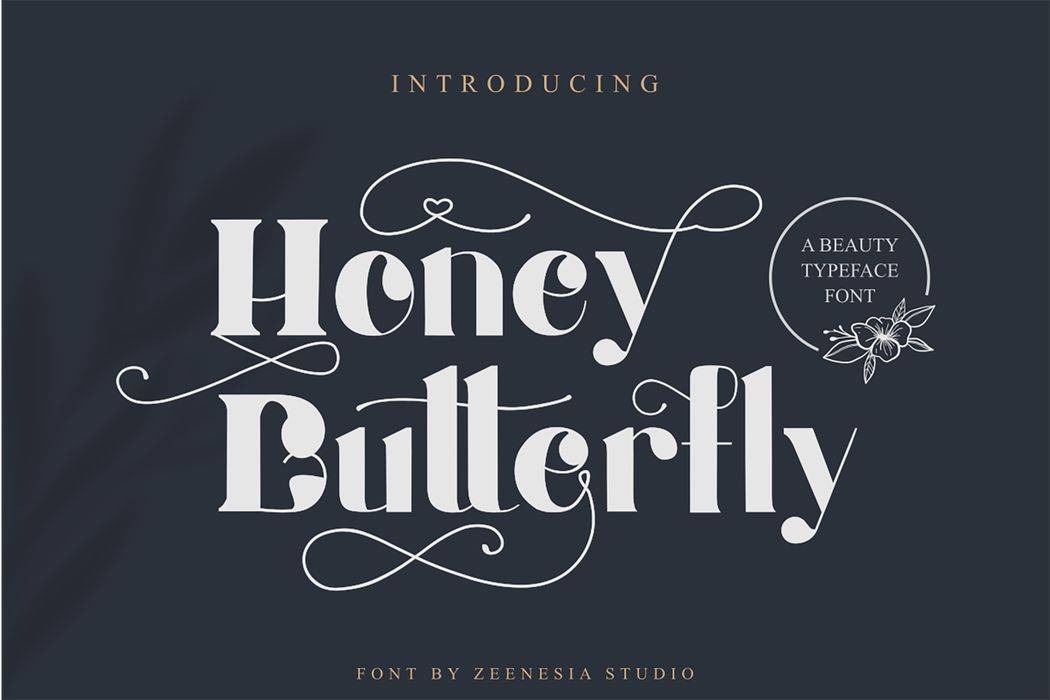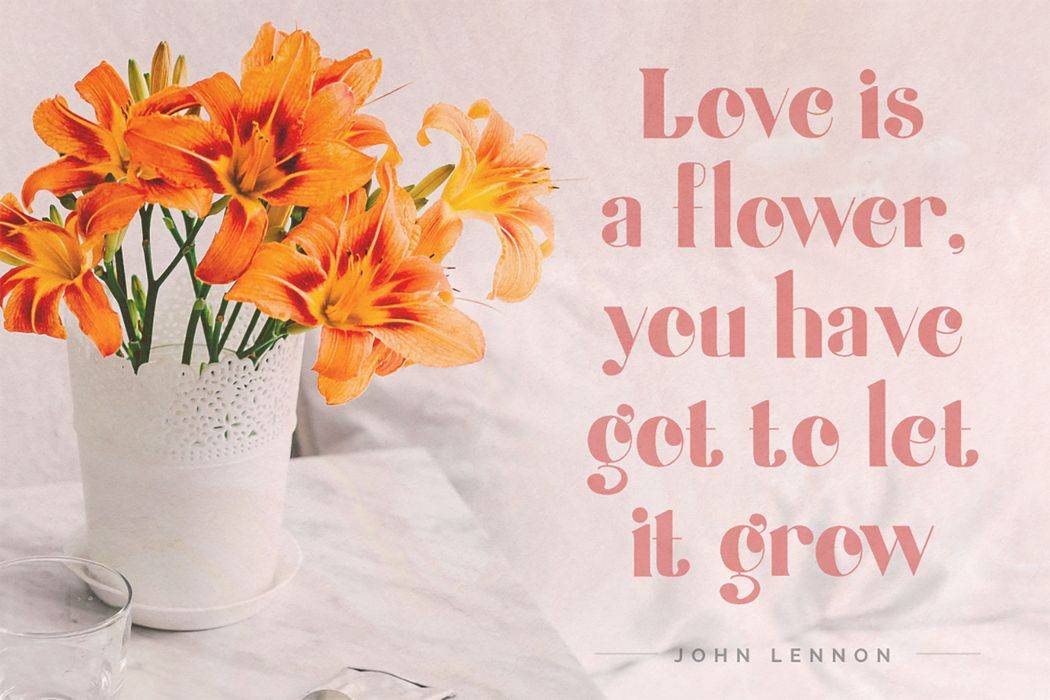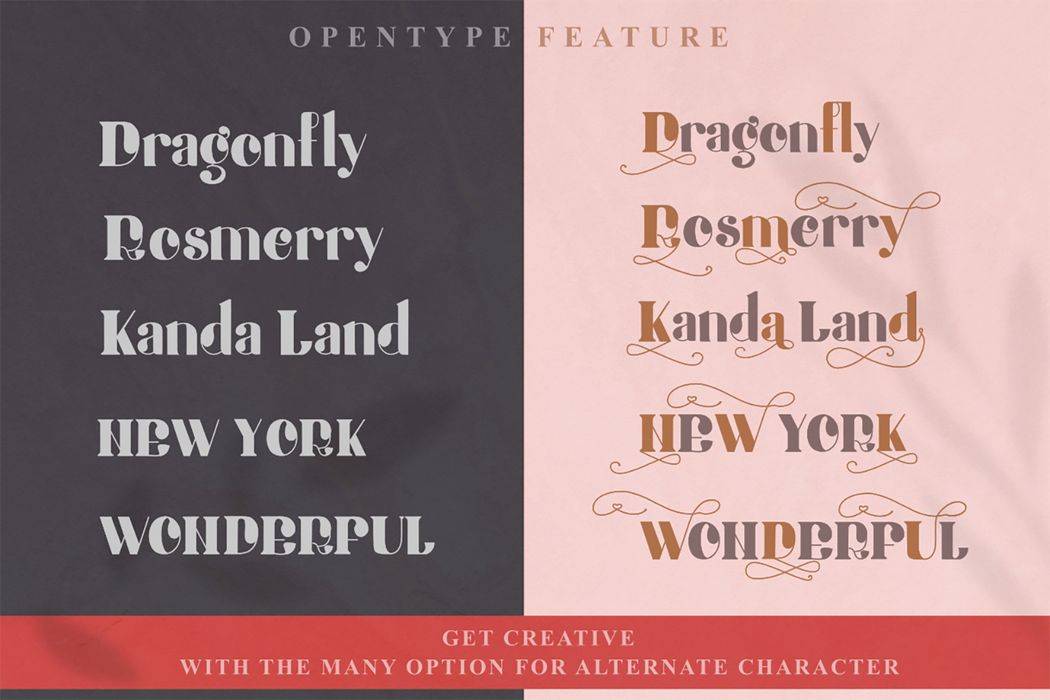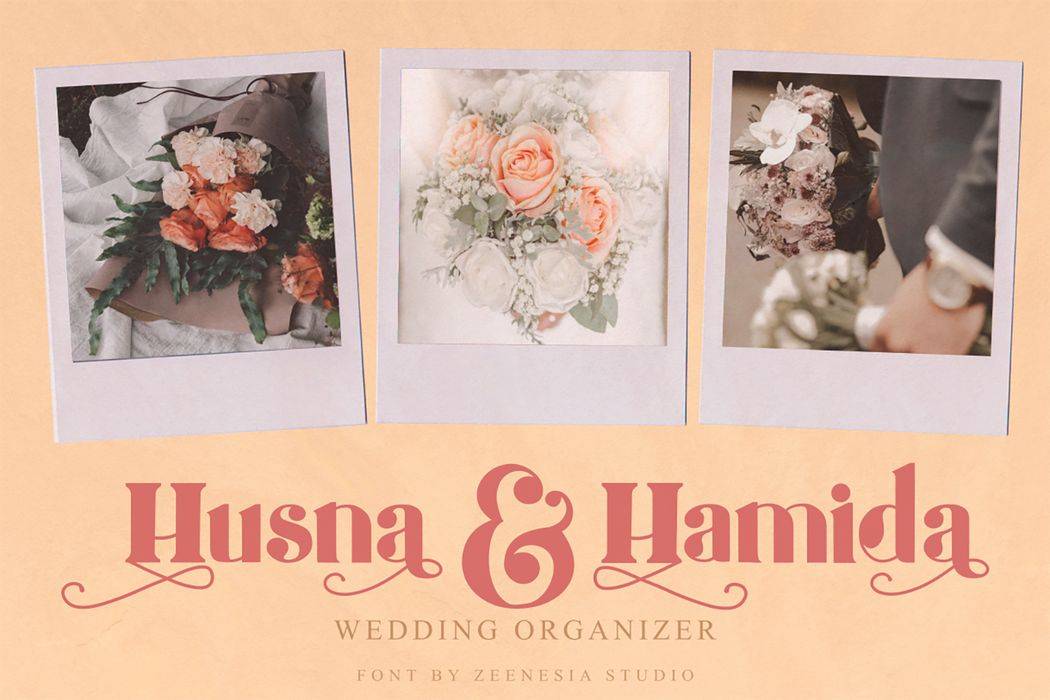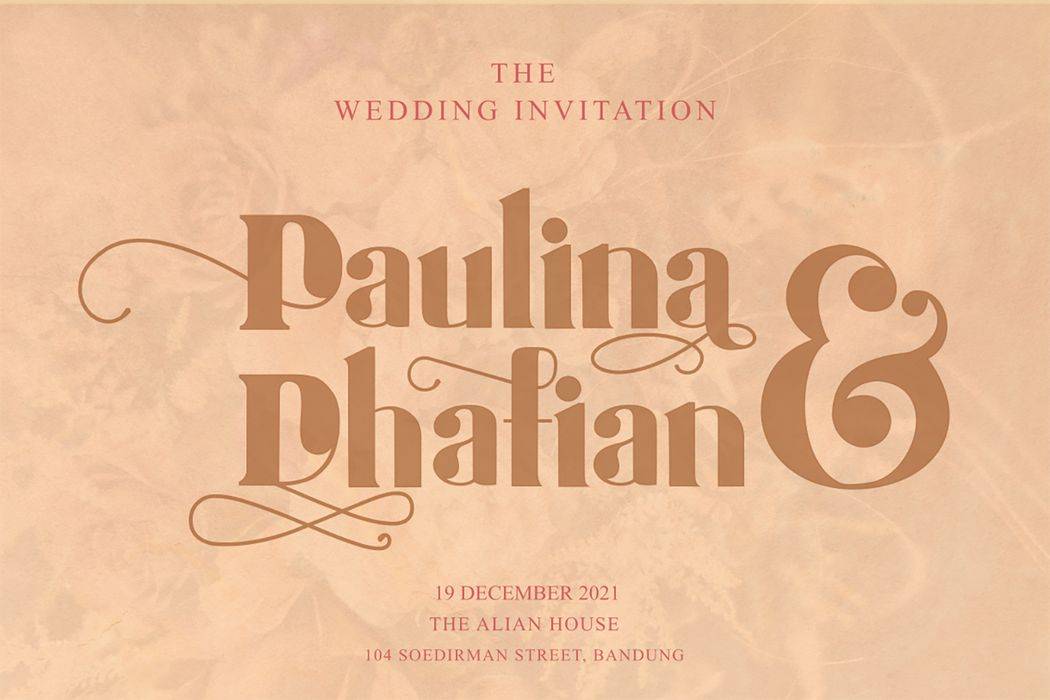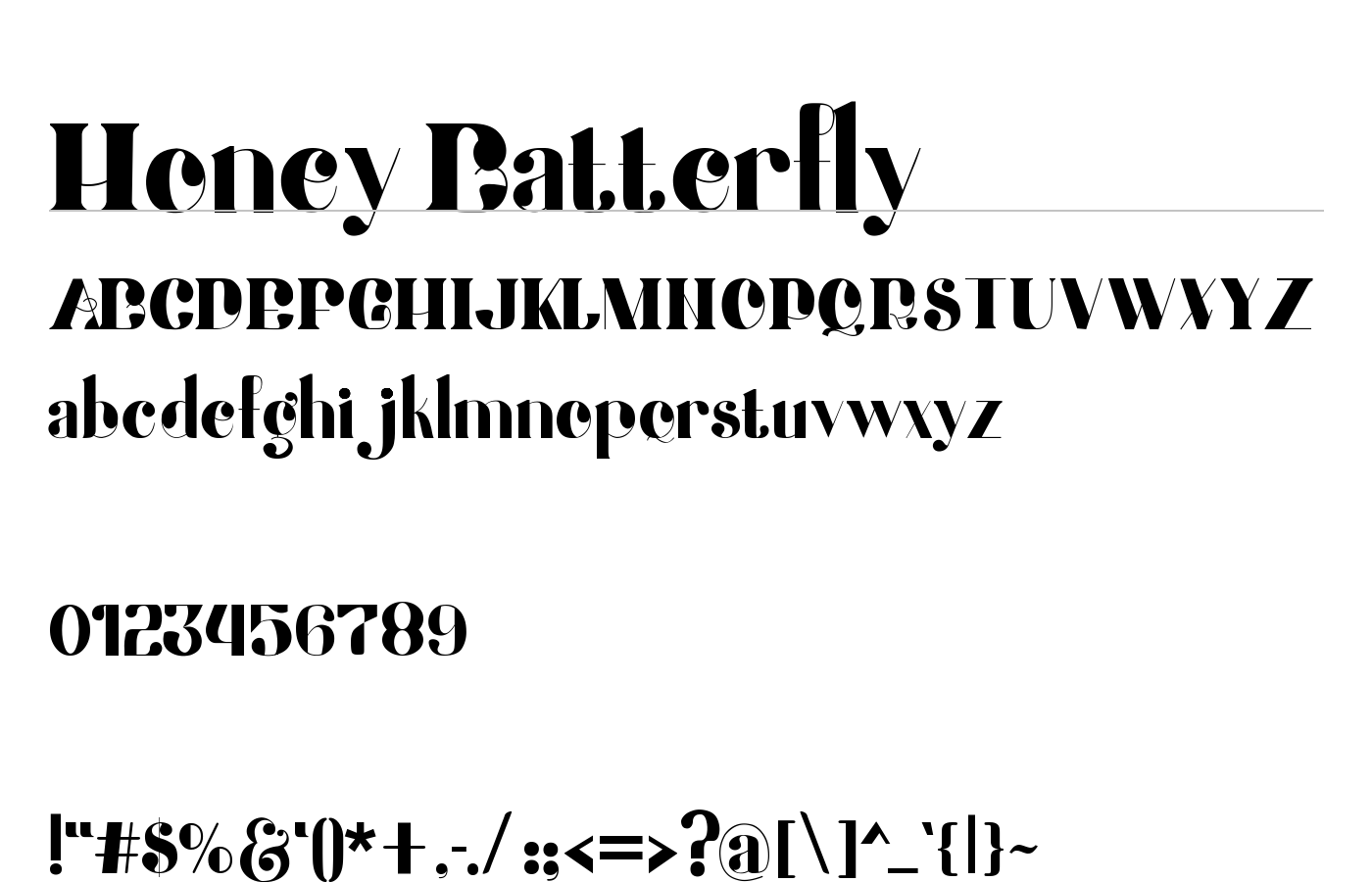
Honey Butterfly is a bold serif display font with a unique blend of high contrast stroke weights and delicate, decorative flourishes that add a playful yet elegant character. Its strong vertical lines and artistic curves make it perfect for eye-catching headlines, fashion branding, and sophisticated packaging where a distinctive, luxury feel is desired. This font shines in creative and stylish settings, making any design feel both modern and whimsically refined.
Honey Butterfly Font
About Honey Butterfly Font
| Font family | Honey Butterfly Font |
| Designer | Abu Rumaisha Doni |